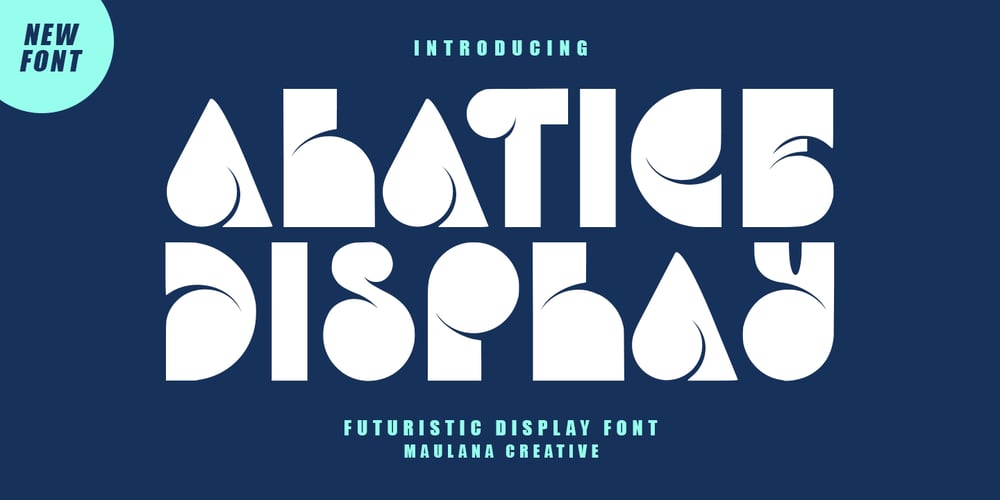
MC Alatice Font Family was designed by Gilang Maulana and published by Maulana Creative. MC Alatice contains 1 styles and family package options. Alatice futuristic display font is a modern font. With bold stroke, fun character with alternates. To give you an extra creative work. Alatice font support multilingual language. This font is good for logo design, Social media, Movie Titles, Books Titles, a short text even a long text letter and good for your secondary text font with sans or serif. Make a stunning work with Alatice font.Cheers,Maulana Creative